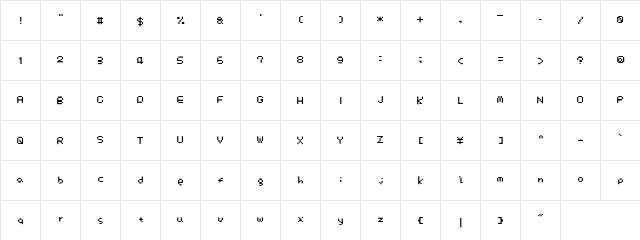
DUST Regular Font Preview
DUST Regular
Design Context for DUST Typeface
DUST is a composed and adaptable typeface that performs quietly and consistently across a wide range of design contexts.